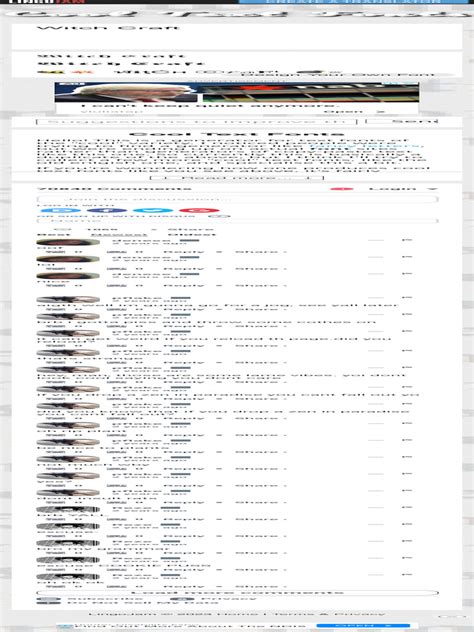
LingoJam Cute Fonts: Your Guide To Stylish Text
Hey there, text enthusiasts and digital creatives! Ever scroll through social media, online bios, or even chat messages and wonder, “How did they get that super cool font?” Chances are, they might have used a font generator, and LingoJam cute fonts are a fantastic place to start if you’re aiming for that adorable, eye-catching aesthetic. We’re diving deep into the wonderful world of LingoJam’s cute font generator, exploring why it’s so popular and how you can use it to make your text stand out from the crowd. Get ready to add some serious charm to your digital communications, guys!
So, what’s the big deal with cute fonts? In the digital realm, where we communicate primarily through text, fonts are our visual language. They convey emotion, personality, and tone. Cute fonts , in particular, tap into a desire for playfulness, friendliness, and a touch of whimsy. Think about it: a standard Arial or Times New Roman is great for formal documents, but it’s not exactly going to win you any points for personality on your Instagram bio, right? Cute fonts, on the other hand, can instantly make a message feel more approachable, fun, and unique. They’re perfect for personal branding, creative projects, or just adding a bit of sparkle to your everyday online interactions. They break the monotony of standard text and draw the reader’s eye, making your content more engaging. Whether you’re a gamer looking for a cool font for your profile, a blogger wanting to add personality to your headings, or just someone who loves making their messages extra special, cute fonts are your secret weapon. They allow you to express yourself in a way that plain text just can’t, adding a layer of visual appeal that resonates with a wide audience. It’s all about making a statement and showing off your individual style in a crowded digital space. The psychological impact of a well-chosen font can be significant, fostering a positive and memorable impression. By using LingoJam cute fonts , you’re not just changing letters; you’re crafting an experience.
Unpacking LingoJam: Your Go-To Font Generator
When you’re on the hunt for that perfect, adorable text style, LingoJam often pops up, and for good reason! LingoJam is a super user-friendly online tool that allows you to type in your text and instantly generate a variety of fancy and cute fonts. It’s not just limited to cute ones, but they definitely have a fantastic selection that fits the bill. The beauty of LingoJam lies in its simplicity. You don’t need any fancy software or design skills. Just head over to their website, type in what you want to say, and bam – a list of different font styles appears. You can then copy your favorite generated text and paste it wherever you like, whether that’s your Twitter bio, a Facebook post, an Instagram caption, a TikTok description, or even within a game’s chat. It’s incredibly versatile. What makes LingoJam stand out is its curated collection of unique characters and Unicode symbols that make up these fonts. These aren’t just standard fonts installed on your computer; they are special characters that most devices can display, ensuring your stylish text appears consistently across different platforms. This accessibility is key to its widespread appeal. Furthermore, LingoJam is constantly updating and adding new styles, so you’ll always find fresh options to play with. It’s like having a massive font library at your fingertips, ready to deploy whenever inspiration strikes. The platform is designed for speed and ease of use, making it a favorite for quick text transformations. So, if you’re looking for a reliable and fun way to get your hands on some seriously cute text, LingoJam is definitely worth exploring. Its intuitive interface means anyone can use it, from tech-savvy teens to grandparents wanting to add a bit of flair to their emails. The LingoJam cute font generator makes customization accessible to everyone, empowering users to express their creativity without barriers.
How to Create Your Own LingoJam Cute Fonts
Alright, let’s get down to the nitty-gritty! Using LingoJam cute fonts is ridiculously easy, so don’t sweat it. First things first, you’ll want to open up your web browser and navigate to the LingoJam website. Once you’re there, you’ll see a pretty straightforward interface. There’s usually a large text box where you can type in the message you want to transform. So, let’s say you want to make your Instagram bio pop. You’d type “Hello, world!” or maybe something more personal like “Just a girl who loves coffee and cute things.” As you type, or after you’ve finished your sentence, LingoJam will automatically generate a bunch of different font options below the input box. Scroll through these options! This is the fun part. You’ll see standard text, then fancy text, then cute variations, and often some that look a bit gothic or experimental. Keep an eye out for the ones that scream cute ! They might have little hearts, stars, or stylistic flourishes. Some might use alternative characters like circled letters, script-like styles, or bold, rounded forms. Once you find a font style you absolutely adore, simply click on it. LingoJam makes it super easy – usually, there’s a “Copy” button right next to each font style, or you can just highlight the text and use your computer’s copy command (Ctrl+C on Windows, Cmd+C on Mac). Now that you’ve copied your perfect cute font text, head over to the platform where you want to use it – maybe it’s your social media profile, a blog post comment, or a message to your bestie. Paste the text using your computer’s paste command (Ctrl+V on Windows, Cmd+V on Mac). Voilà! Your message will now appear in that adorable, unique font. It’s that simple, guys. No downloads, no complicated steps, just pure, instant font magic. The key is to experiment and find what resonates with your personal style or the message you want to convey. Don’t be afraid to try different combinations or see how a particular font looks in different contexts. The LingoJam cute font generator is your playground for text creativity!
Tips for Choosing the Perfect Cute Font
When you’re scrolling through the countless options generated by LingoJam cute fonts , it’s easy to get overwhelmed. But don’t worry, we’ve got some pro tips to help you nail that perfect cute aesthetic. First off, consider your audience and platform . What works for a playful TikTok caption might not be ideal for a more professional LinkedIn profile, even if you’re aiming for a friendly vibe. Think about who will be reading your text. Are they fellow gamers who appreciate quirky styles? Or are you trying to attract a broader audience with something universally appealing? Secondly, readability is crucial. While a super fancy font might look cool, if it’s difficult to read, your message will get lost. Look for cute fonts that maintain a good level of clarity. Fonts with rounded edges, slightly thicker strokes, or playful but distinct letterforms are often good choices. Avoid overly condensed or complex fonts that can become a jumbled mess, especially on smaller screens. Thirdly, consistency is key for branding. If you’re using a cute font for your online persona or a specific project, try to stick to a similar style across different platforms. This helps build recognition and reinforces your unique identity. LingoJam often provides variations of a style, so you might find a slightly bolder or more decorative version that complements your primary choice. Fourth, experiment with symbols . Many cute fonts generated by LingoJam incorporate special Unicode symbols like hearts (♥), stars (⭐), sparkles (✨), or cute little emojis integrated into the text. Use these sparingly to add emphasis or flair, but don’t go overboard. Too many symbols can make your text look cluttered and unprofessional. Finally, test it out . Before you hit that final post button, copy and paste your chosen cute font text into a draft or a private message to yourself. See how it looks on different devices (phone, tablet, desktop) and in various contexts. Does it render correctly? Does it convey the emotion you intended? By following these tips, you’ll be well on your way to mastering the art of using LingoJam cute fonts to make your digital presence undeniably charming and effective. Remember, the goal is to enhance your message, not to obscure it, so find that sweet spot between unique style and clear communication.
Beyond Cute: Exploring LingoJam’s Versatility
While the allure of LingoJam cute fonts is strong, it’s important to remember that LingoJam is a versatile tool that offers so much more. Think of it as a digital chameleon for your text! Beyond the adorable hearts and swirls, LingoJam provides a vast array of font styles to suit almost any need. Need something bold and impactful for a headline? LingoJam has you covered. Looking for an elegant, script-like font for a special announcement? You’ll find options there too. Gamers often flock to LingoJam for its selection of gothic , cyberpunk , or futuristic fonts that add a serious edge to usernames and in-game chat. Content creators can use different fonts to differentiate between various sections of their blog posts or social media updates, creating a more dynamic and engaging reading experience. For those working on creative writing projects, LingoJam can help you experiment with different moods and tones for character dialogue or narrative descriptions. The underlying technology – the use of Unicode characters – means that these generated fonts are highly compatible across many different applications and operating systems. This is a massive advantage. You’re not limited to just one platform; you can take your customized text anywhere. This makes LingoJam a powerful tool for anyone who wants to add a personal touch to their online presence. Whether you’re aiming for ‘cute,’ ‘cool,’ ‘professional,’ or ‘quirky,’ LingoJam provides the means to achieve it. It’s a fantastic resource for anyone looking to break free from the limitations of standard system fonts and explore the creative potential of text. Don’t be afraid to venture beyond the ‘cute’ category and discover the full spectrum of what LingoJam has to offer. You might just find your new favorite font for every occasion!
Final Thoughts on LingoJam and Cute Fonts
So there you have it, guys! We’ve journeyed through the delightful world of LingoJam cute fonts and explored why they’re such a popular choice for adding personality and flair to your digital communications. From making your social media bios more engaging to adding a touch of charm to your everyday messages, LingoJam offers a simple, accessible, and fun way to transform your text. Remember, the key to using any font generator effectively is to balance creativity with clarity. Choose fonts that not only look amazing but also ensure your message is easily understood by your audience. Test them out, consider your platform, and most importantly, have fun with it! LingoJam is a fantastic tool that puts the power of stylized text right at your fingertips. Whether you’re a seasoned digital native or just starting to explore the online world, give LingoJam cute fonts a try. You might be surprised at how much joy and individuality you can inject into your words with just a few clicks. Happy typing, and may your text always be as cute and captivating as you are!